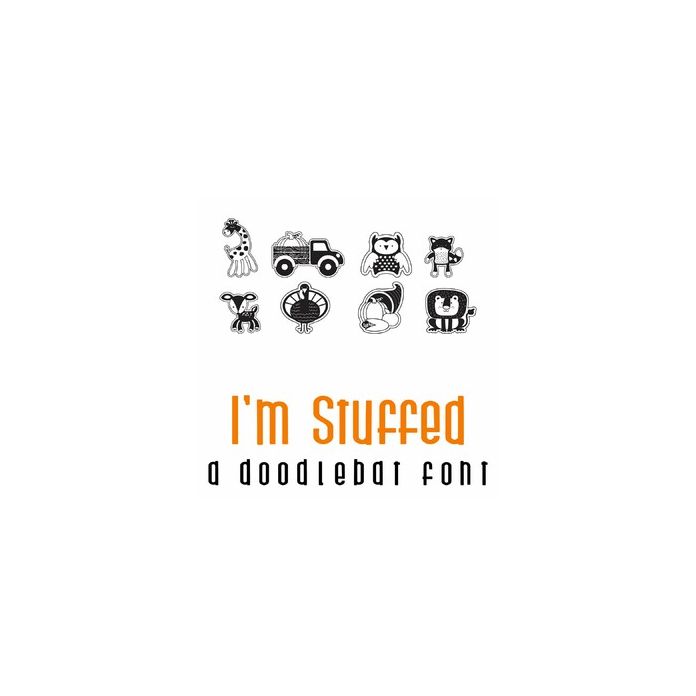
This adorable doodlebat font features 26 stuffed forest animals and fall and Thanksgiving themed items. Perfect for cards, crafts, gifts, decor, scrap book pages, planner stickers and more!